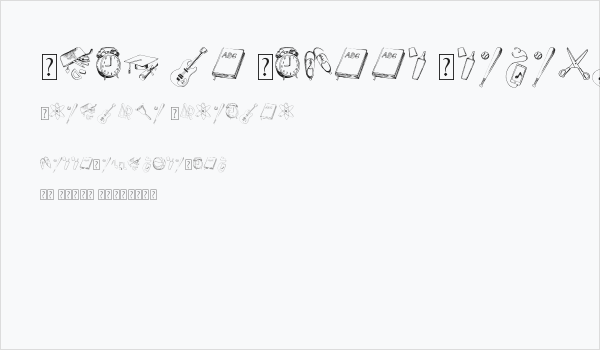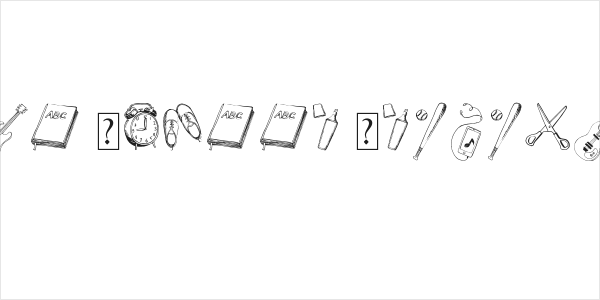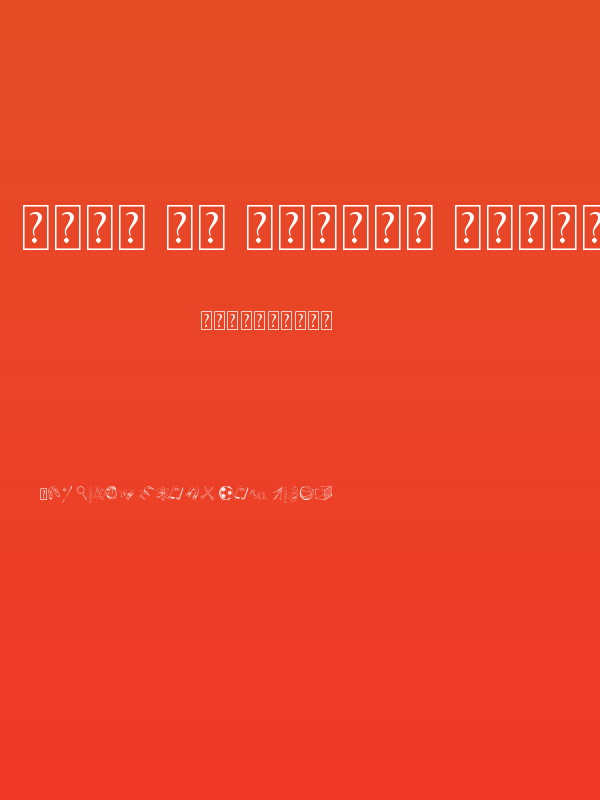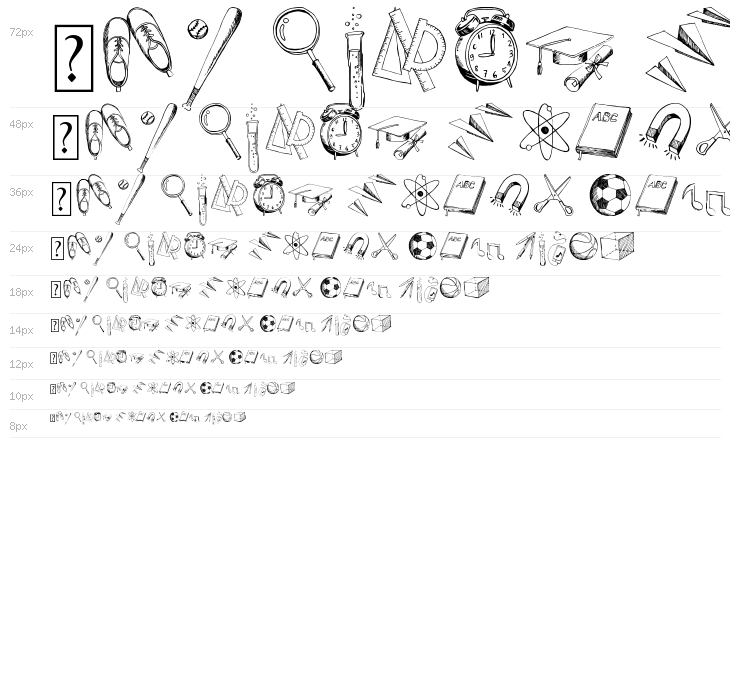
Back to School Elements DEMO Font
Back to School Elements DEMO Description
A decorative dingbat font featuring hand-drawn school-related elements such as scissors, books, clocks, pencils, sports equipment, lab tools, and geometric shapes. Each character is represented by a unique sketch-style illustration, evoking a playful and educational theme.
| Overall Style | Decorative, Playful, Sketch |
| Use Case | Decorative elements, Icons, Themed graphics |
| Proposed Projects | Educational posters, classroom decor, worksheets, back-to-school flyers, children's book illustrations. |